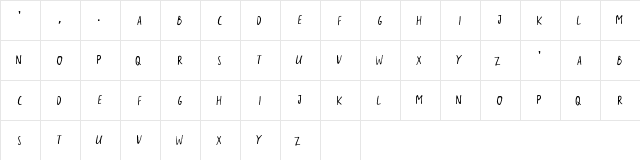
the sarcastic giraffe Regular Font Preview
the sarcastic giraffe Regular
Design Context for the sarcastic giraffe Typeface
the sarcastic giraffe is a composed and adaptable typeface that performs quietly and consistently across a wide range of design contexts.
Pro Tip: Use the sarcastic giraffe in both headline and body roles to test its range before committing to a single application.